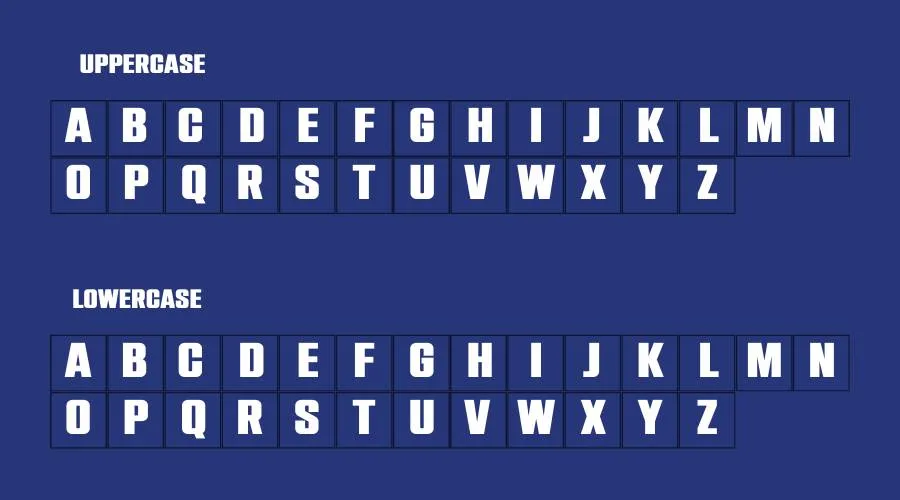
About Rockstar Font
Rockstar Font is created by Typologic it is a sans-serif text style. This font family comes with all the exclamation points and hyphen letters needed to create a beautiful design when used with the other font.
It is also available in both uppercase and lowercase characters. The characters and glyphs featured in the font bundle, which is freely downloadable below in zip file format, is a tremendous fonts that will draw unique styles.